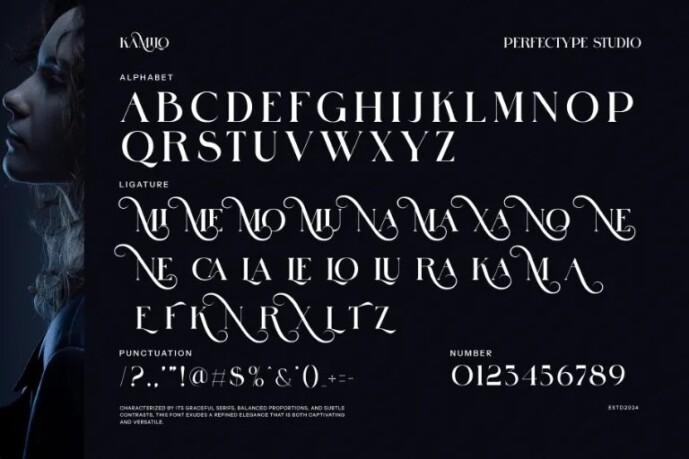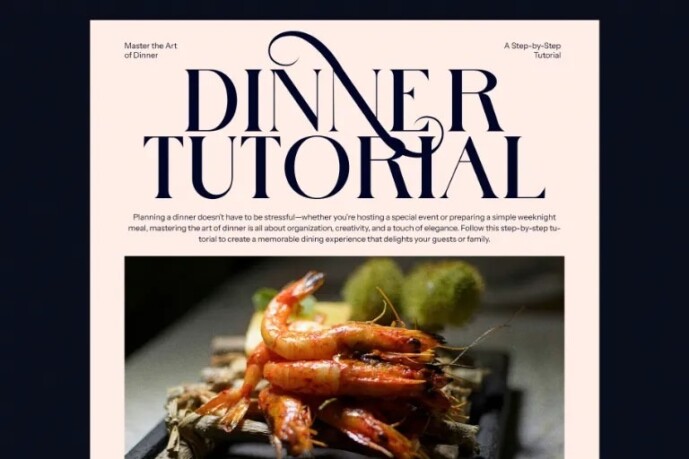
Kamilo Font
Designer: Arfianto
Kamilo Font is a type of font called a “ligature serif.” It means the letters are connected in a special way, making them flow smoothly together. The font has small lines or strokes at the ends of the letters, which gives it a classic, elegant look. Kamilo is great for making text look stylish and unique while still being easy to read.